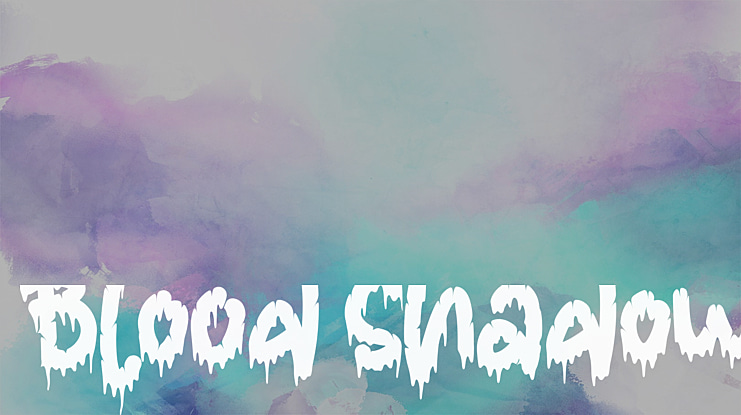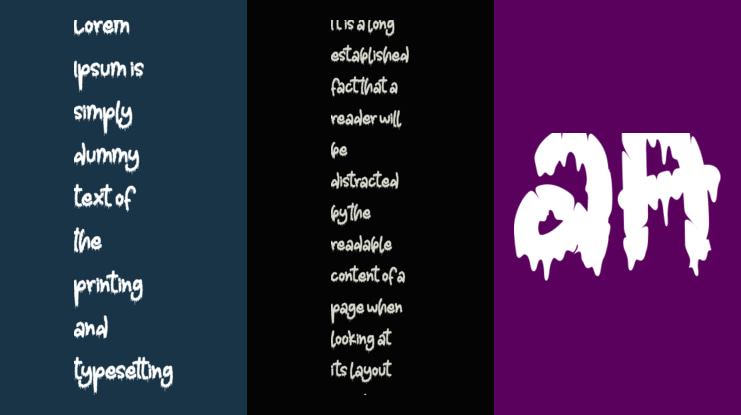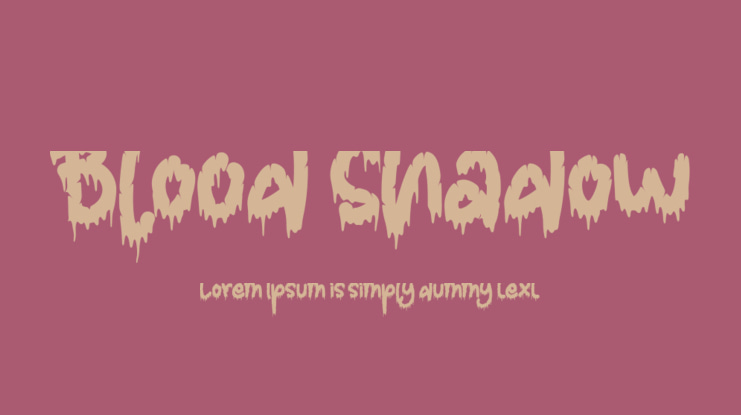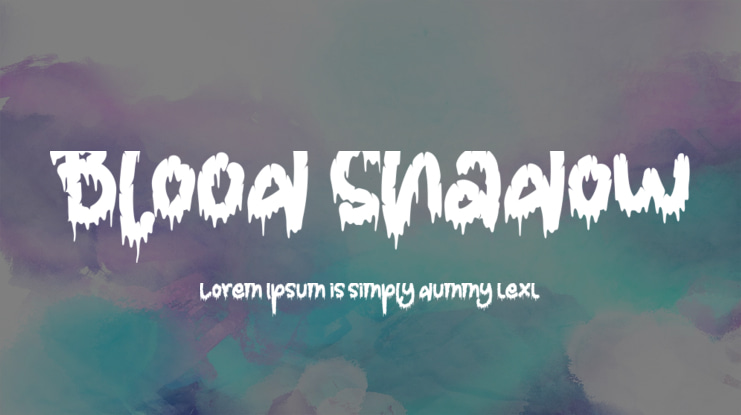
Blood Shadow Font
Blood Shadow is a cool and creepy display font. This font is PUA encoded which means you can access all of the glyphs and swashes with ease! Add it to each of your Halloween designs and notice how they instantly stand out.